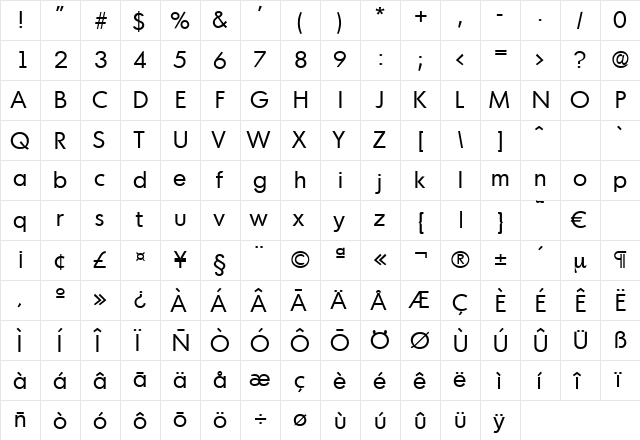
Montreal-Regular Regular
Design Context for Montreal-Regular Typeface
Montreal-Regular offers clean, dependable letterforms without strong stylistic allegiance, making it a practical choice for designers who need flexibility.